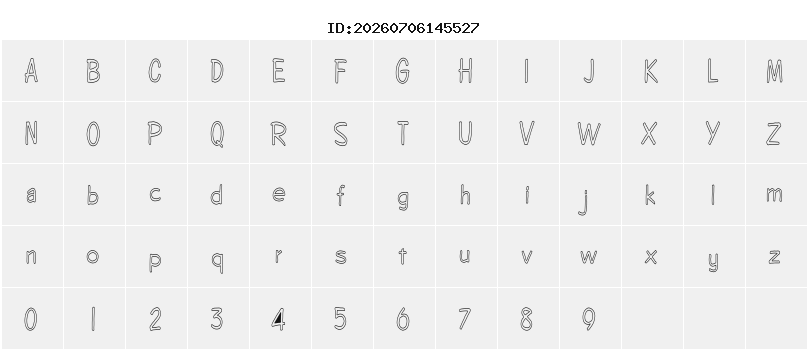
Diego1HC Preview
• Font Name: Diego1HC
• Full Font Name: Diego1HC
• PostScript Name: Diego1HC
About Diego1HC.ttf
Diego1HC.ttf is a modern, elegant sans-serif font designed for ultimate readability and visual harmony. Perfect for branding, headlines, web design, and print materials.